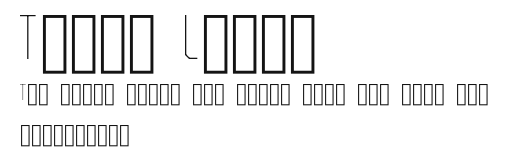
• Font Name: Tribo Light
• Designer: Mixi Ignacio
About Tribo Light.ttf
Tribo Light.ttf is a modern, elegant sans-serif font designed for ultimate readability and visual harmony. Perfect for branding, headlines, web design, and print materials.